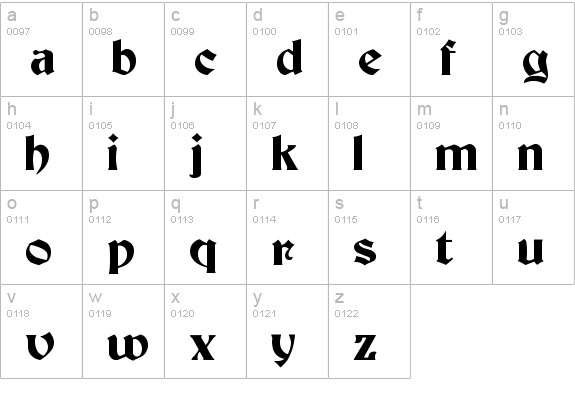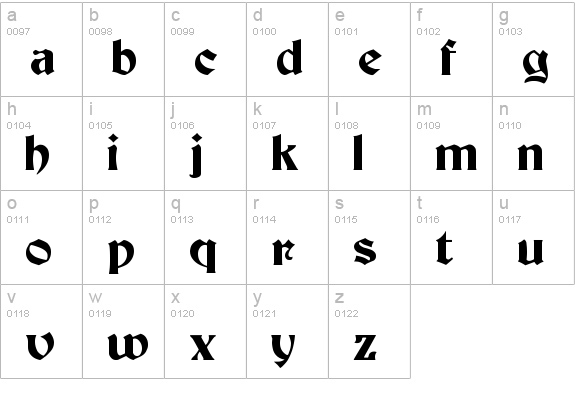
Tesoro Font Details
Tesoro font is a sophisticated and elegant typeface that exudes timeless charm and class. With its delicate serifs and graceful curves, Tesoro is perfect for adding a touch of luxury to your designs. This versatile font is suitable for a wide range of projects, from branding and packaging to wedding invitations and editorial layouts. What sets Tesoro font apart is not only its exquisite aesthetics but also its accessibility - it is available for free download at FontsMarket.com. This means that you can easily incorporate this beautiful font into your projects without any cost, making it a valuable asset for designers and creatives looking to elevate their work with a touch of refinement and sophistication. Don't miss out on the opportunity to enhance your designs with Tesoro font today!